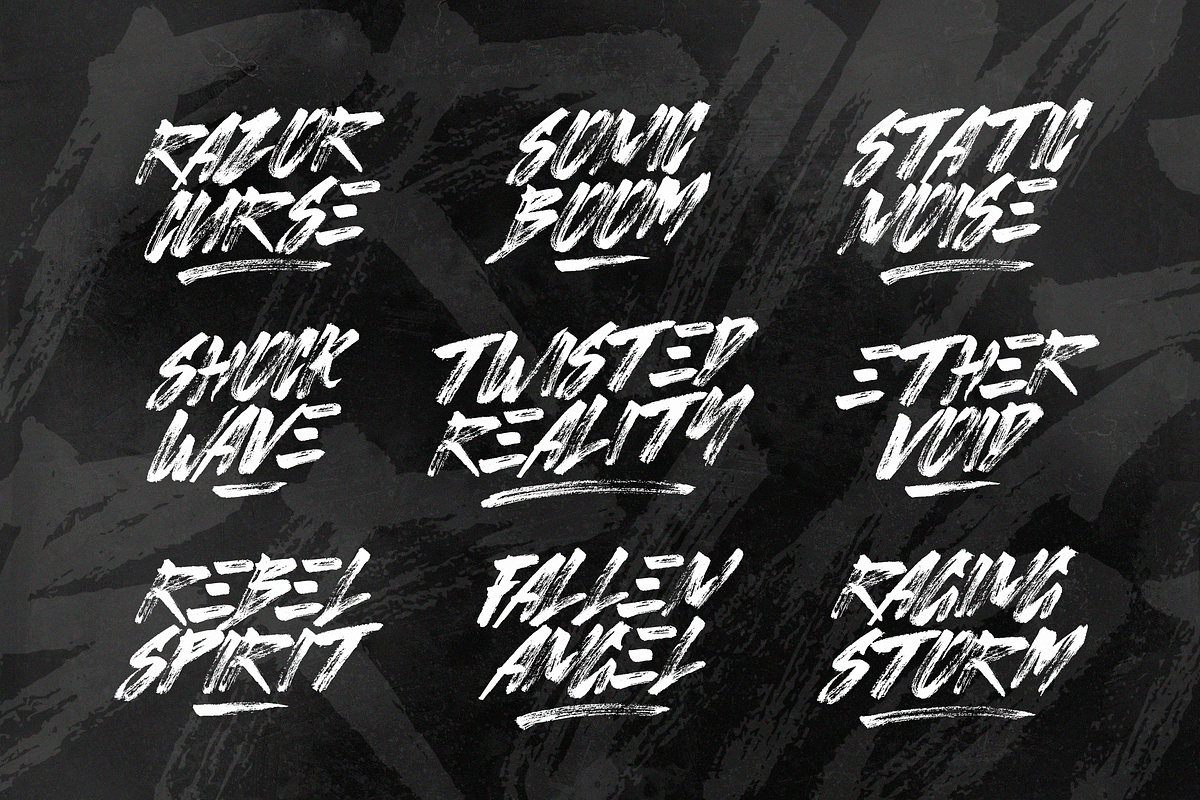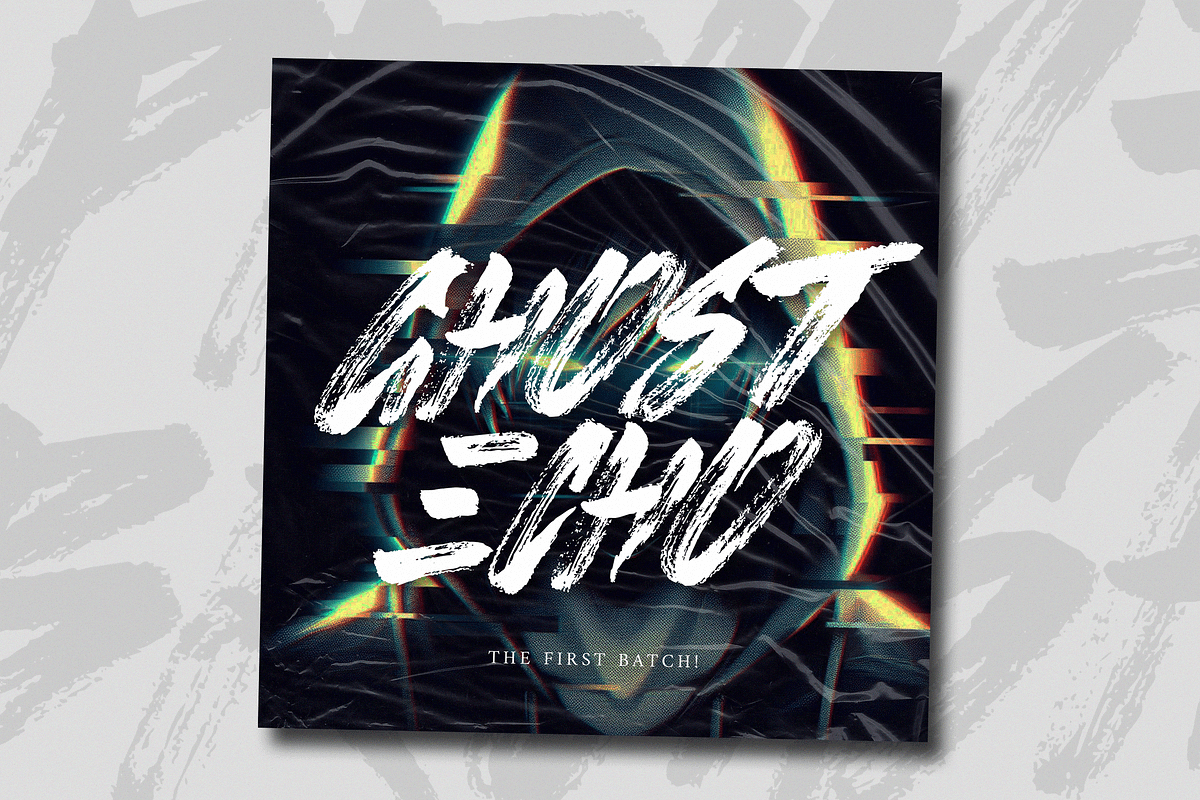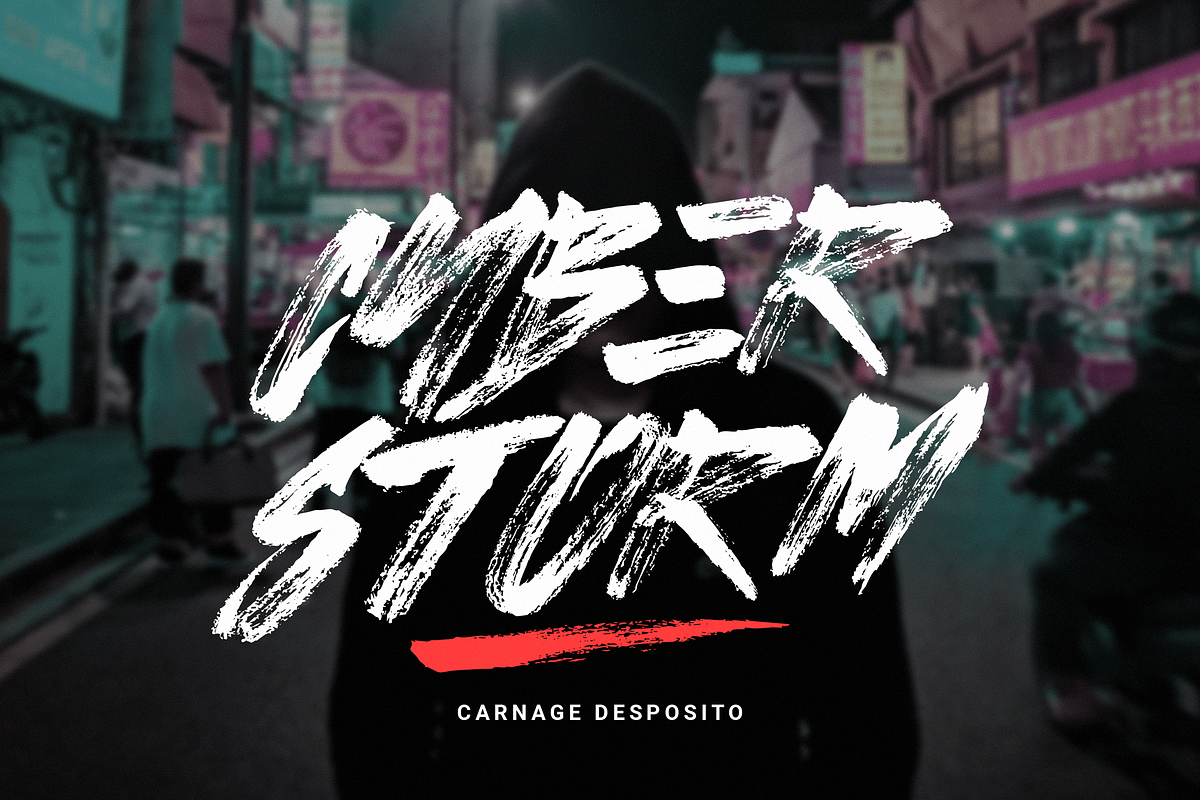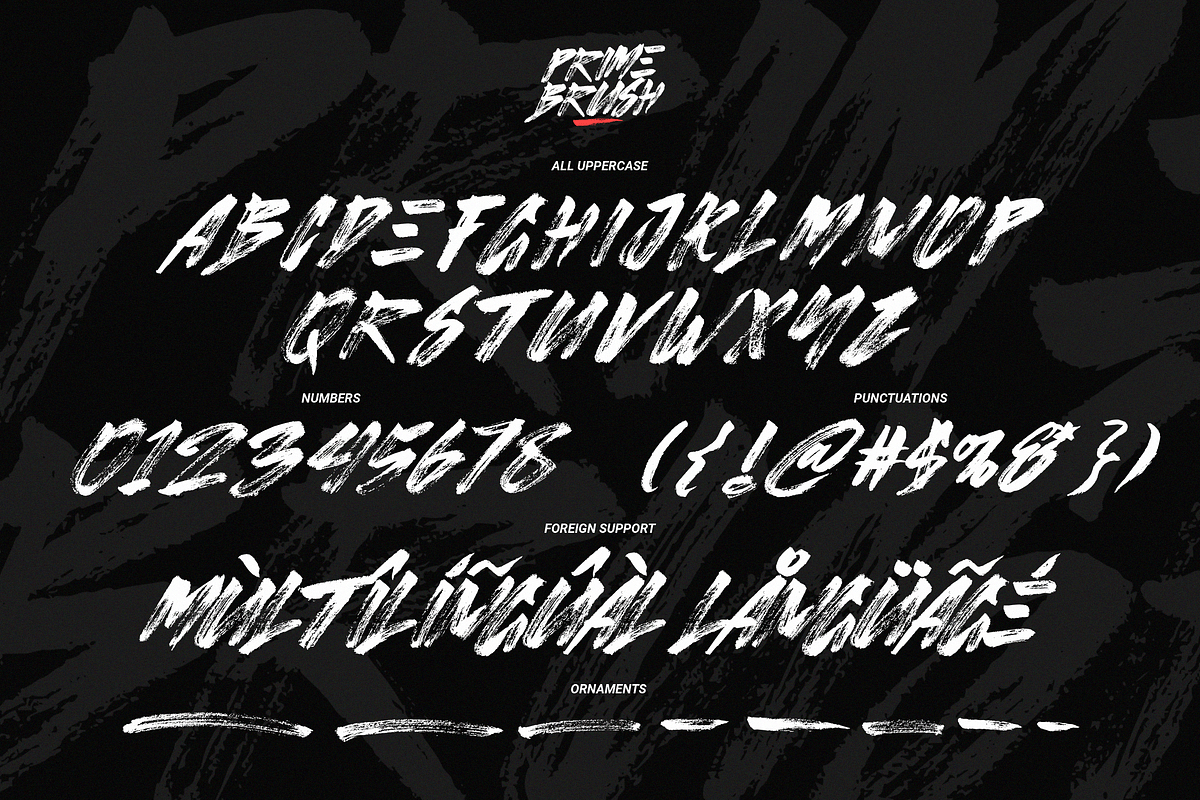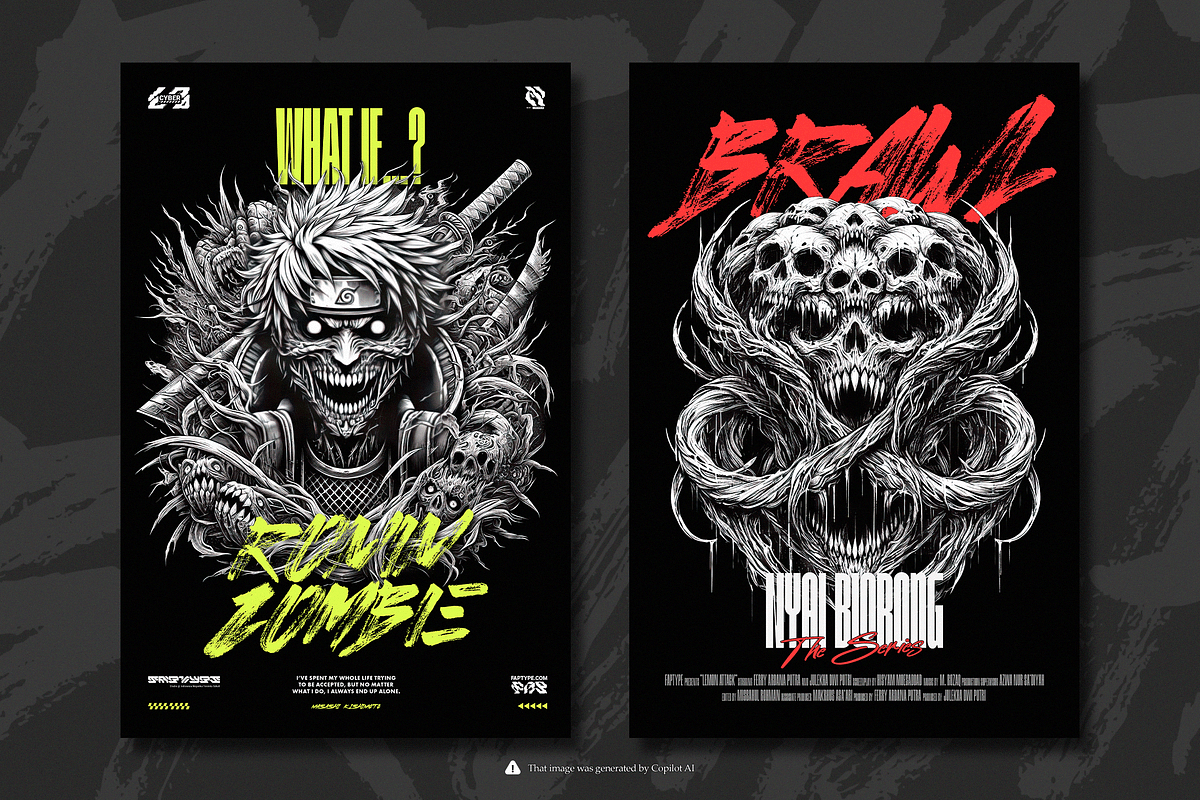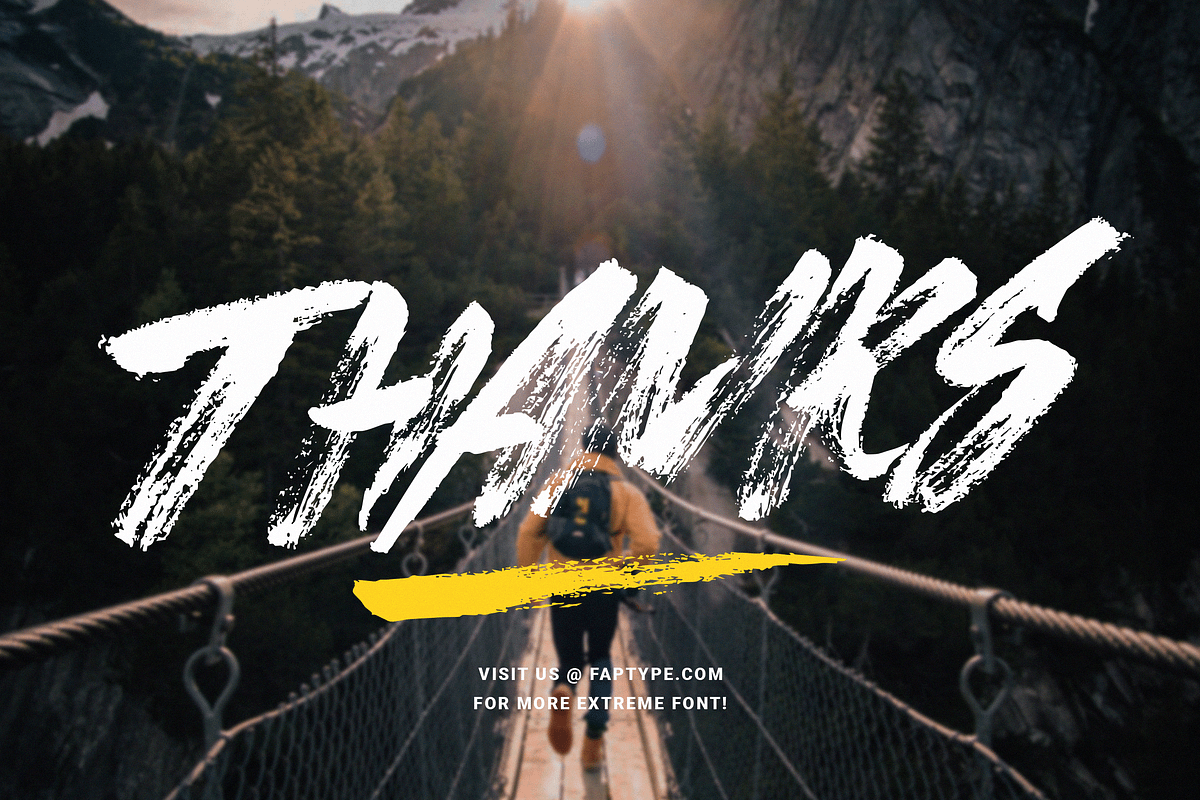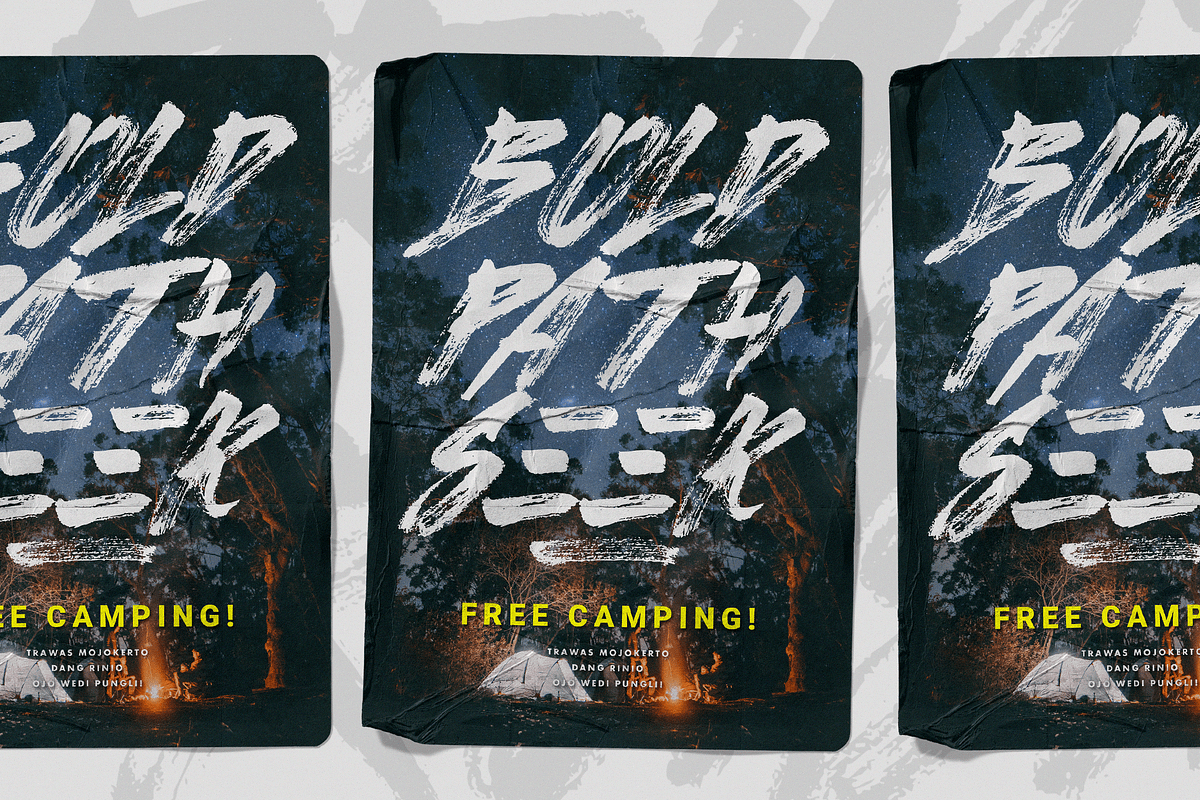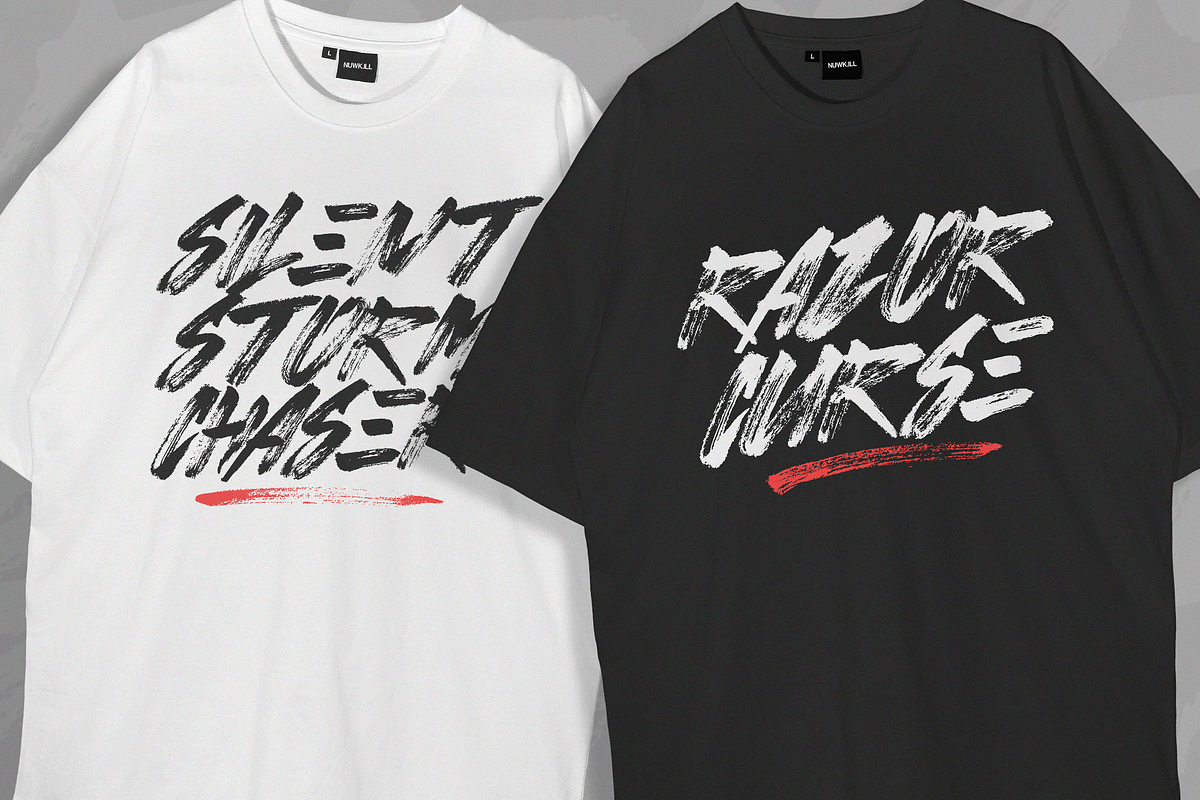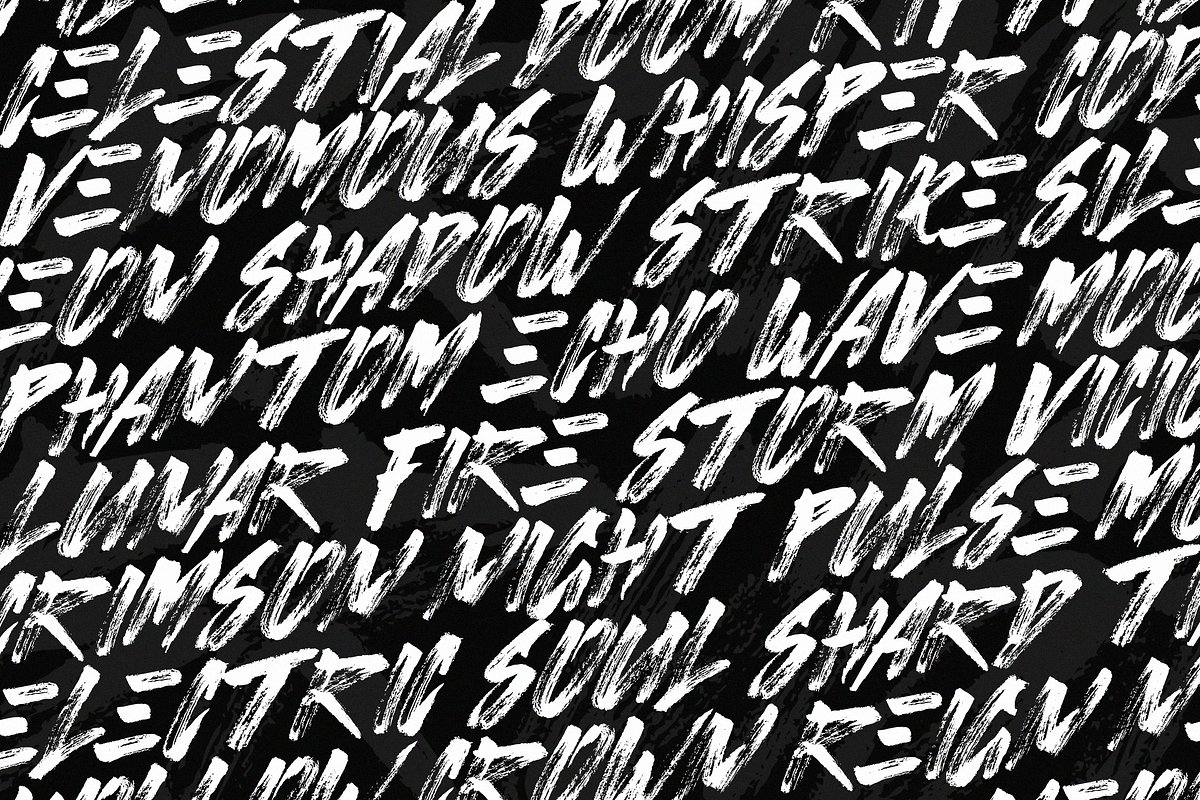
Prime Brush – Bold Dry Brush Font
Introducing Prime Brush, a handcrafted dry brush font that captures the raw energy of bold strokes and dynamic movement. Created manually using a real dry brush, each letter is painted with precision, scanned, and digitally refined to maintain its natural texture and organic imperfections. The result is a font that feels alive—packed with expressive details that bring authenticity to any design. Whether you're working on a bold headline, an eye-catching logo, or artistic branding, Prime Brush delivers an impactful, high-energy aesthetic.
Designed with all-uppercase characters, this font is meant to make a statement. It includes a full set of symbols, punctuation, and swashes, giving you the creative freedom to add motion and flair to your typography. With built-in multilingual support, it seamlessly adapts to a variety of languages, making it a versatile choice for global projects. The rough, textured strokes of Prime Brush bring out an effortless balance between chaos and control—perfect for projects that demand a raw, rebellious, and energetic touch.
From posters, apparel, and album covers to branding, packaging, and social media graphics, this font fits seamlessly into any design that craves authenticity. Whether you're crafting streetwear aesthetics, grunge-style visuals, or high-impact advertising, Prime Brush ensures your message is delivered with power and confidence. Let your creativity flow and make a bold impression with this rugged, hand-drawn masterpiece.
Prime Brush Features:
- A full set of Uppercase
- Numbers and Punctuation
- Multilingual Language Support
- OpenType Features
- +248 Total Glyphs
- Dry Brush Swashes included! (You can access the ornaments in Photoshop by navigating to Window Glyphs)